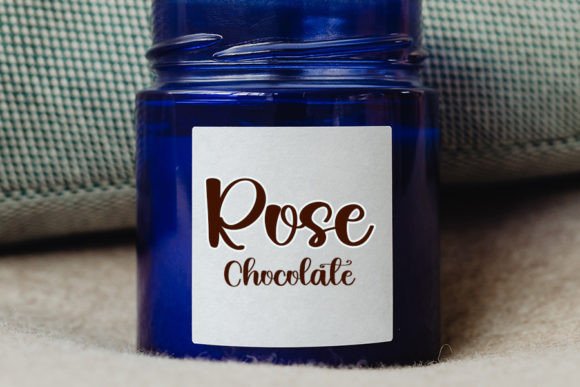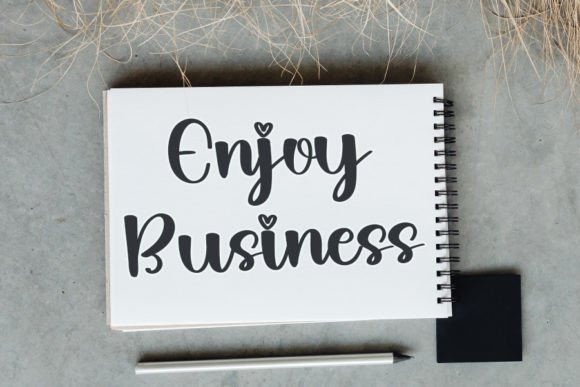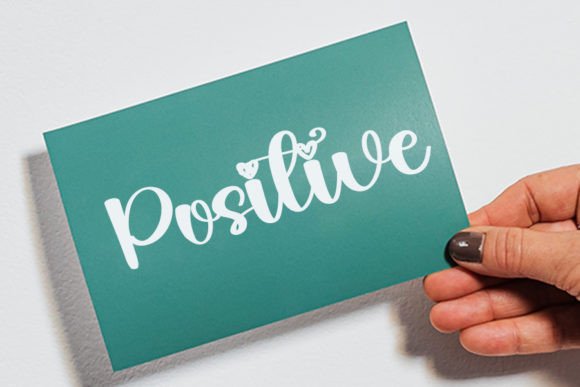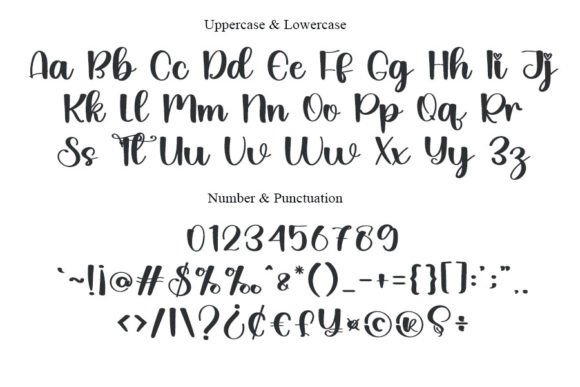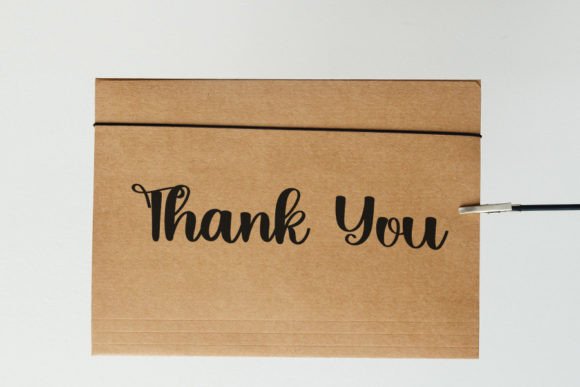
Introducing Discount Market Font: Elevate Your Designs with Elegance and Class
In the world of design, fonts play a crucial role in conveying the tone and aesthetic of a project. For designers and crafters seeking to add a touch of sophistication and timeless elegance to their creations, the Discount Market Font is an exceptional choice. This trendy handwritten font, inspired by classic calligraphy, brings a contemporary atmosphere and impeccable form to the table, making it perfect for a wide range of design projects.
The Inspiration Behind Discount Market Font
Discount Market Font draws its inspiration from the timeless classics of calligraphy, reimagining traditional elegance with a modern twist. This font is not just a collection of letters; it’s a blend of heritage and innovation, designed to bring a sense of luxury and refinement to your designs. Whether you’re working on a branding project, packaging, or digital content, Discount Market Font offers the versatility and style to make your work stand out.
Key Features of Discount Market Font
- Trendy Handwritten Style: With its handwritten appearance, Discount Market Font adds a personal and unique touch to any design, setting it apart from more conventional fonts.
- Contemporary Atmosphere: Despite its classic inspiration, this font boasts a modern feel that will appeal to designers looking for something fresh and current.
- Impeccable Form: Each letterform is meticulously crafted to ensure clarity and beauty, making it suitable for both digital and print projects.
- Elegance and Class: The font’s elegant strokes and balanced proportions bring a level of sophistication that can elevate any design project.
Uses of Discount Market Font
The versatility of Discount Market Font makes it suitable for a variety of applications, including:
- Branding and Logos: Create memorable and stylish brand identities with this distinctive font.
- Packaging Design: Add a touch of luxury and appeal to your product packaging.
- Digital Content: Enhance your website, blog, or social media graphics with elegant typography.
- Stationery and Invitations: Bring a sense of class and sophistication to your paper goods.
- Advertising and Marketing Materials: Stand out with professional and eye-catching ads and promotional materials.
Why Choose Discount Market Font?
In a sea of fonts, Discount Market Font stands out for its unique blend of classic inspiration and modern style. Here are a few reasons why it should be your go-to choice for your next design project:
- Unique and Memorable: Its distinctive style ensures your designs won’t go unnoticed.
- Highly Versatile: Suitable for a wide range of projects, from digital to print.
- Easy to Read: Despite its elegant nature, the font maintains excellent readability.
- Time-Saving: With its comprehensive character set, you can efficiently create professional-looking designs.
Discount Market Font is more than just a font; it’s a design statement. Its perfect blend of timeless elegance and modern trends makes it an invaluable asset for designers and crafters aiming to create visually stunning and impactful designs. Whether you’re looking to add a touch of sophistication to your branding, packaging, or digital content, Discount Market Font is the perfect choice. Elevate your designs with elegance and class—choose Discount Market Font for your next project.